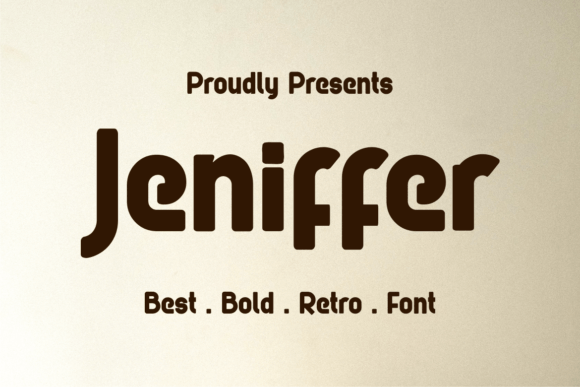
Introducing the Jeniffer Font: A Retro Masterpiece for Bold Designs
Step into the world of eye-catching typography with Jeniffer Font - a striking display font that exudes an aura of vintage charm and retro aesthetics. Designed with a bold and confident stroke, Jeniffer Font is the perfect choice for creating designs that demand attention and leave a lasting impression.
Discover the Power of Boldness: Make Your Words Stand Out
In the realm of visual communication, boldness is a virtue. Jeniffer Font embodies this principle with its audacious lines and assertive presence. Each character radiates strength and determination, ensuring your messages cut through the noise and resonate with your audience. Whether you're crafting logos, posters, or captivating social media graphics, Jeniffer Font empowers you to make a statement that lingers in the minds of your viewers.
Harness the Beauty of Retro: A Timeless Appeal
The Jeniffer Font draws inspiration from the golden era of design, channeling the nostalgic charm of retro aesthetics. Its carefully crafted curves and distinct letterforms evoke a sense of familiarity and warmth, reminiscent of simpler times. By incorporating Jeniffer Font into your designs, you can tap into the enduring appeal of retro style, creating timeless pieces that transcend trends and resonate with audiences of all ages.
Unleash Your Creativity: A Font for All Occasions
Jeniffer Font is an incredibly versatile font, effortlessly adapting to a wide range of design projects. Its bold presence makes it ideal for headlines, posters, and branding materials that demand immediate attention. Yet, its retro charm also lends itself beautifully to invitations, packaging designs, and social media posts that seek to evoke a sense of nostalgia and warmth. With Jeniffer Font, your creativity knows no bounds, allowing you to explore endless possibilities and captivate your audience with every design.
Elevate Your Designs to New Heights: The Perfect Choice for Professionals
If you're a creative professional seeking to elevate your designs and leave a lasting impact, Jeniffer Font is your ultimate weapon. Its bold and distinctive style sets your work apart from the ordinary, ensuring your designs command attention and admiration. Whether you're a graphic designer, marketer, or entrepreneur, Jeniffer Font empowers you to create visuals that connect with your audience on a deeper level, driving engagement and leaving a lasting impression.
Join the Creative Revolution: Embrace the Jeniffer Font Experience